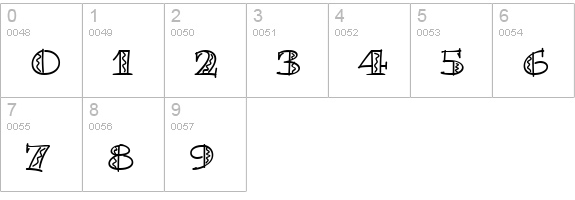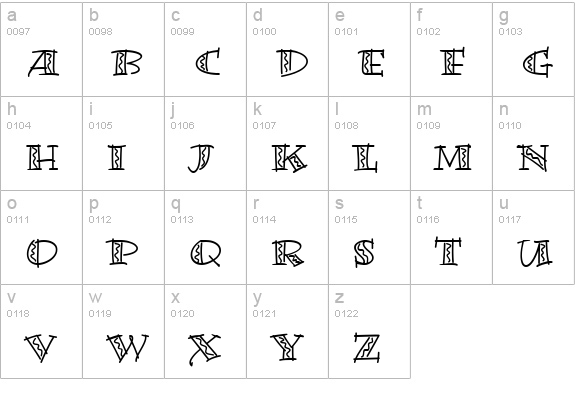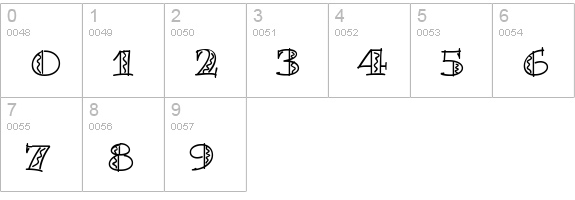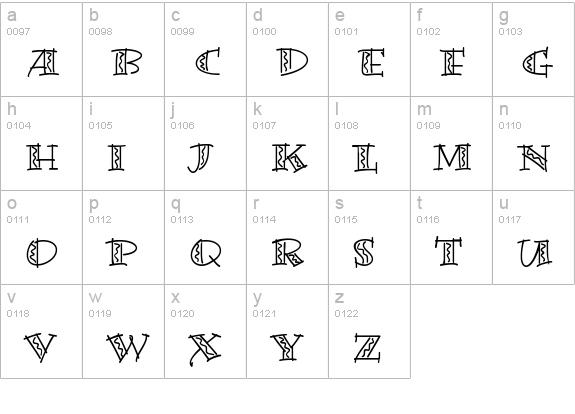
Introducing the captivating Bermuda LP Squiggle font, a playful and dynamic typeface that is sure to add a touch of whimsy to your design projects. This unique font features quirky squiggles and lively curves that exude a sense of creativity and fun. Best of all, Bermuda LP Squiggle is completely free to download at FontsMarket.com, allowing you to easily access this charming font for all your creative needs. Whether you're working on branding, posters, invitations, or any other design project, this font is sure to make a bold statement and leave a lasting impression. Embrace the free-spirited vibe of Bermuda LP Squiggle and let your imagination run wild with this delightful font that is as unique as it is versatile. Download it today and infuse your designs with a touch of playful elegance.